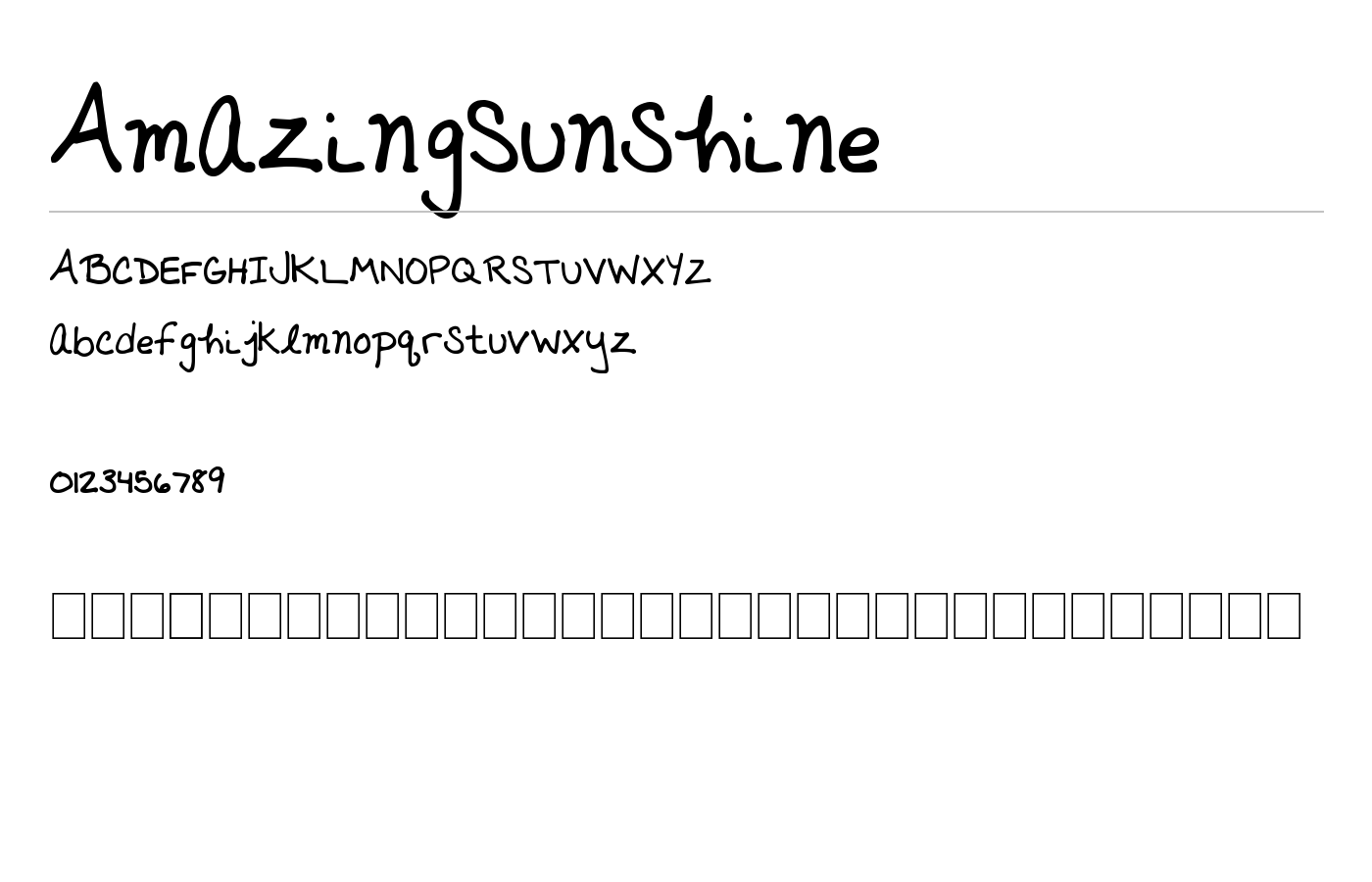
AmazingSunshine is a playful, handwritten sans serif font with a casual and friendly vibe. Its irregular strokes and quirky letterforms give it a warm, approachable feel, making it ideal for informal branding, children’s materials, and creative projects where personality and charm are key. This font works best in headlines or short text, adding a personal touch that stands out with a fun, lively character.
AmazingSunshine Font
About AmazingSunshine Font